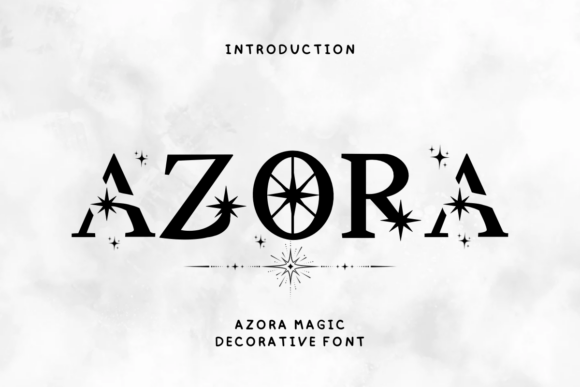
Unlock the Power of Azora Magic Font: Elevate Your Artistic Creations
Are you looking for a font that can add a touch of magic to your artistic creations? Look no further than Azora Magic, an alluring decorative font that can elevate your designs to new heights. In this article, we’ll explore the versatility of Azora Magic and how it can be used to express your thoughts, capture cherished memories, and create stunning visual content.
What is Azora Magic Font?
Azora Magic is a unique and captivating font that is perfect for adding a touch of elegance and sophistication to your designs. Its decorative style makes it ideal for use in a variety of creative projects, from notetaking and journaling to graphic design and social media posts.
- Alluring Decorative Style: Azora Magic features an elegant and sophisticated design that is sure to capture attention.
- Versatile: This font can be used in a variety of creative projects, from notetaking and journaling to graphic design and social media posts.
- Easy to Read: Despite its decorative style, Azora Magic is easy to read and understand, making it perfect for use in body text.
Uses of Azora Magic Font
Azora Magic is a versatile font that can be used in a variety of creative projects. Here are some ideas to get you started:
- Notetaking: Use Azora Magic to add a touch of elegance to your notes and make them stand out.
- Journaling: Record your thoughts, feelings, and experiences in a beautiful and stylish way with Azora Magic.
- Greeting Cards: Create warm and inviting greeting cards for special occasions, such as birthdays, weddings, and holidays.
- Graphic Design: Use Azora Magic to create stunning visual content, including bold banners, captivating content, and creative mugs.
- Social Media Posts: Add a touch of magic to your social media posts and make them stand out from the crowd.
- Stationery: Create refined and elegant stationery, including letterheads, envelopes, and notecards.
- T-Shirts and Apparel: Use Azora Magic to create unique and eye-catching designs for t-shirts and other apparel.
Benefits of Using Azora Magic Font
There are many benefits to using Azora Magic in your creative projects. Here are a few:
- Adds a Touch of Elegance: Azora Magic adds a touch of elegance and sophistication to your designs, making them stand out from the crowd.
- Versatile: This font can be used in a variety of creative projects, making it a great addition to your font library.
- Easy to Read: Despite its decorative style, Azora Magic is easy to read and understand, making it perfect for use in body text.
- Unique: Azora Magic is a unique and eye-catching font that will help your designs stand out from the crowd.
Tips for Using Azora Magic Font
Here are a few tips for using Azora Magic in your creative projects:
- Use it Sparingly: Azora Magic is a decorative font, so use it sparingly to add emphasis and create visual interest.
- Pair it with Other Fonts: Pair Azora Magic with other fonts to create a unique and eye-catching design.
- Experiment with Different Sizes: Experiment with different font sizes to create visual interest and add emphasis to your designs.
- Use it in Combination with Images: Use Azora Magic in combination with images to create stunning visual content.
Azora Magic is a versatile and eye-catching font that can add a touch of magic to your artistic creations. Whether you’re looking to create stunning visual content, add a touch of elegance to your notes, or create unique and eye-catching designs for t-shirts and other apparel, Azora Magic is the perfect choice. With its decorative style, ease of use, and versatility, Azora Magic is a great addition to any font library.